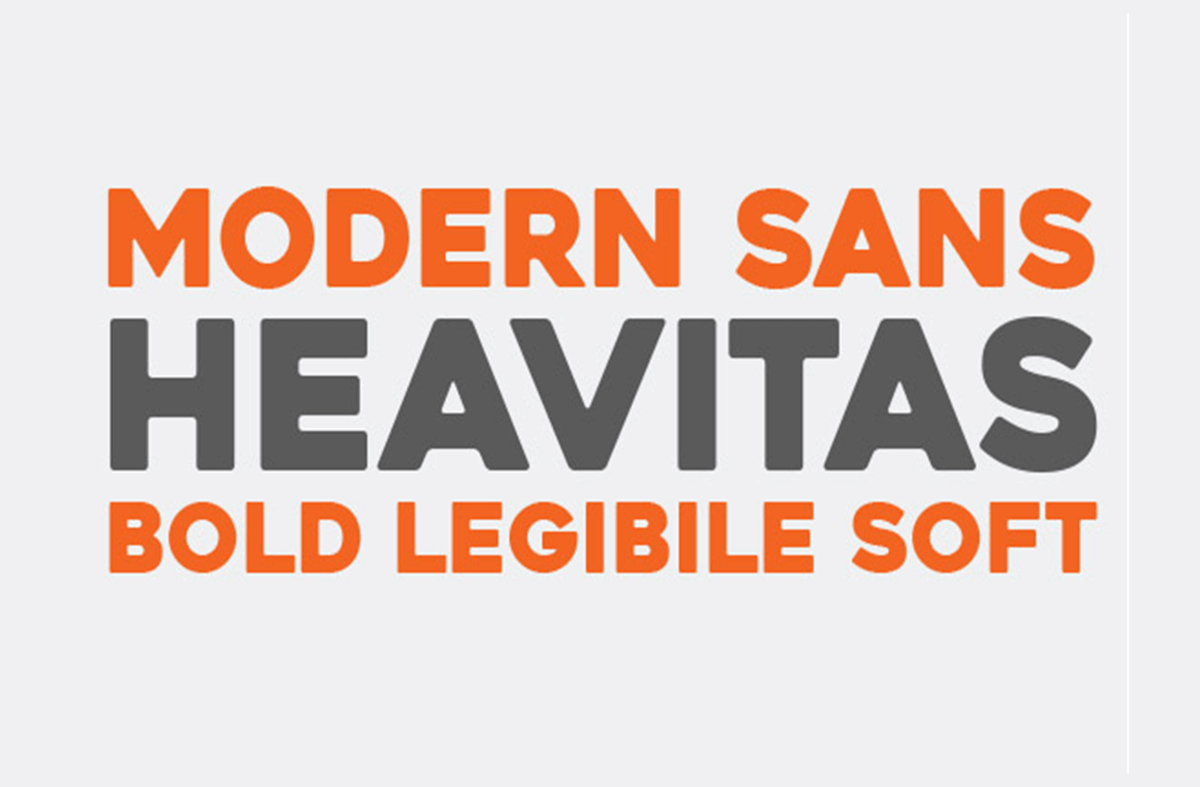
Heavitas Font
Heavitas is a modern, bold & elegant sans serif font created by Deepak Dogra.
This expressive font is very legible and works great for many types of projects.